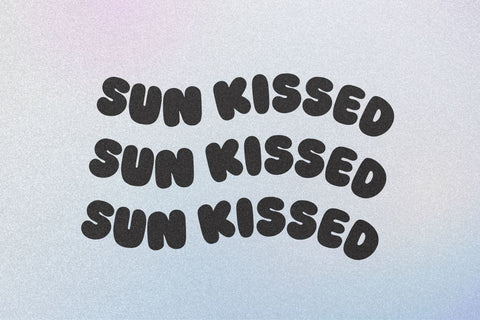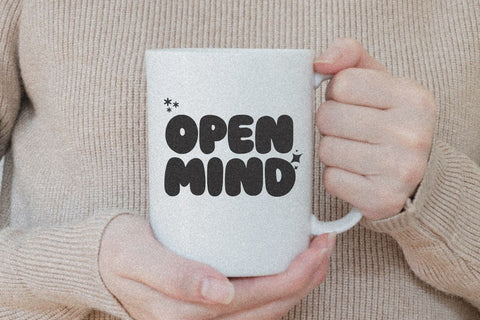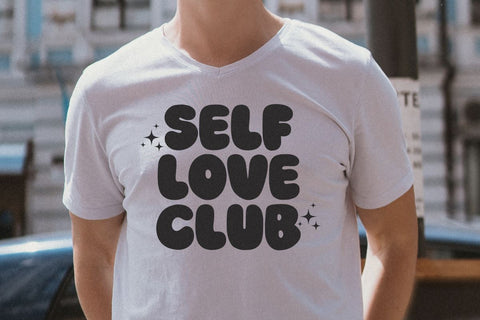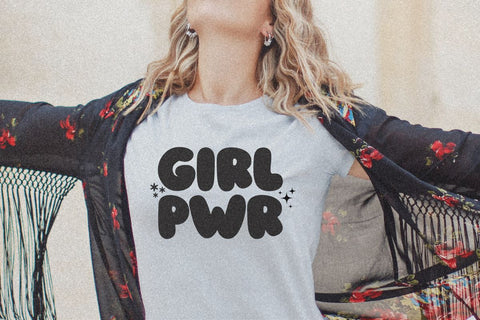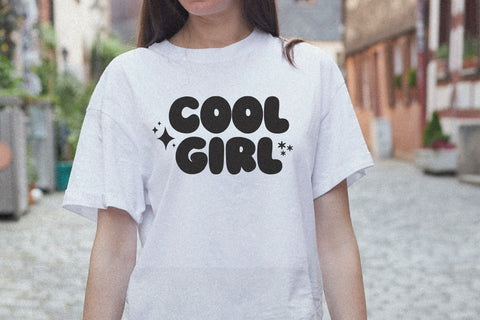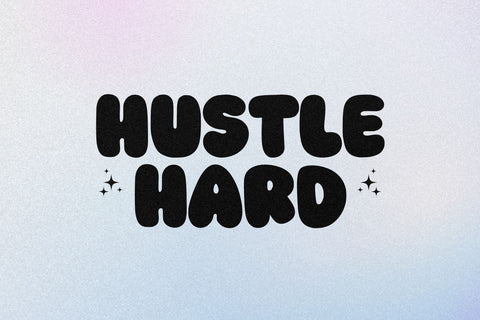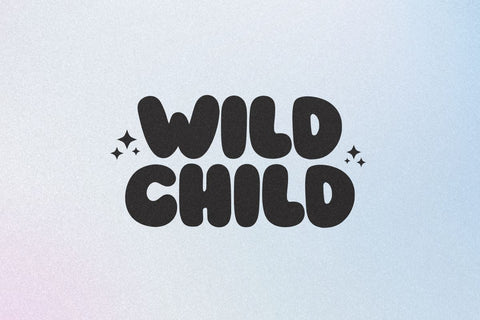
Wild Kind - Bubbly Handwritten Font
Hi, Introducing Wild Kind - Bubbly Handwritten Font
A Bubbly Handwritten Font with a cute and adorable style. This font is cool for mugs, t-shirts, quotes, tote bags, greeting cards etc